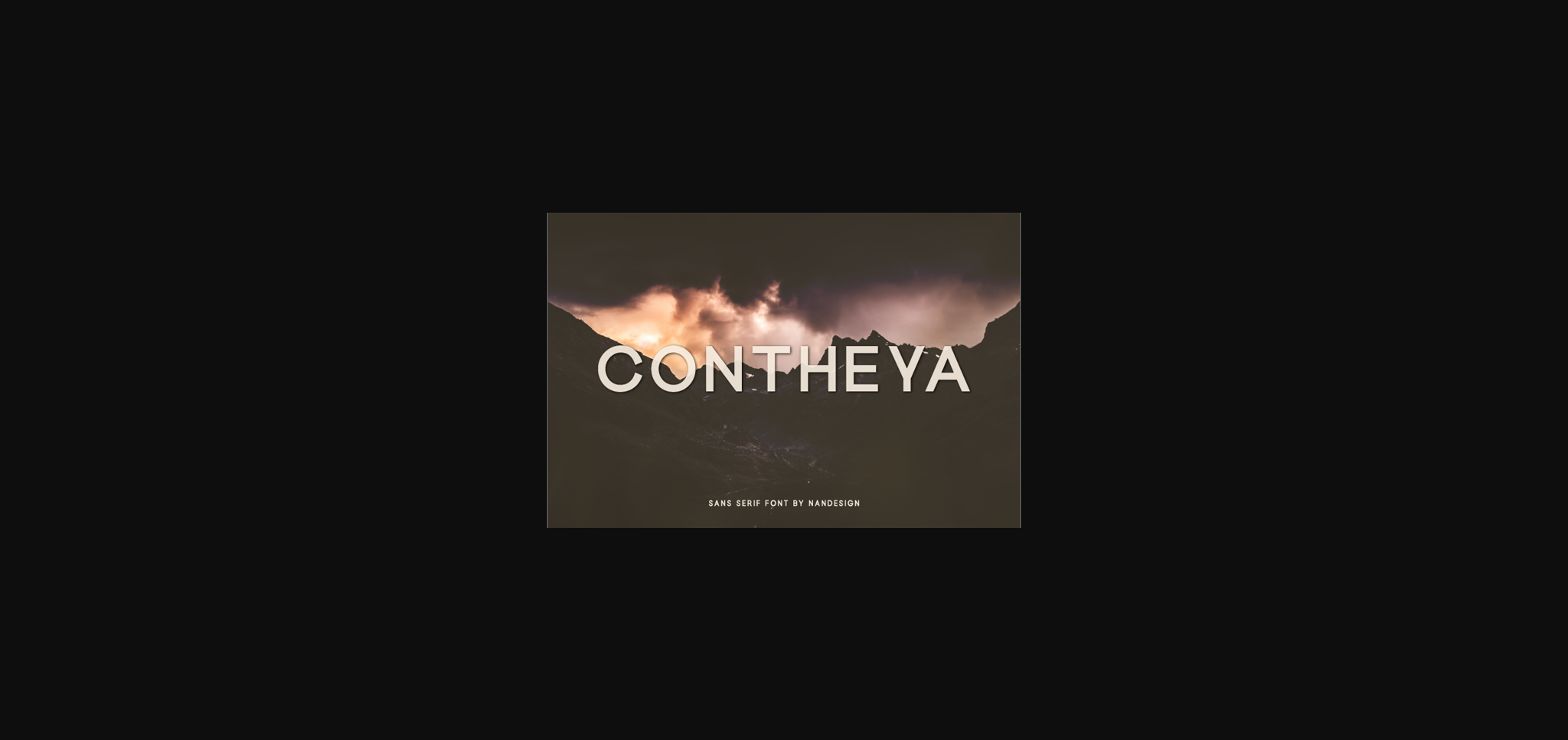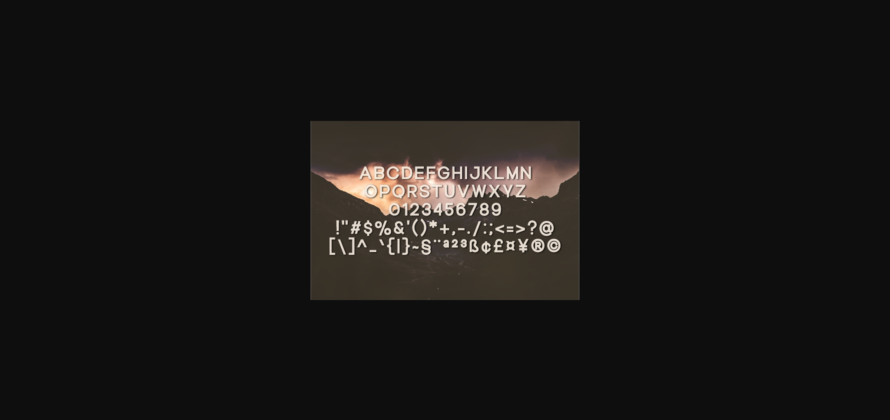
About Contheya Font
Contheya is a fitting and useful sans serif font. It can be used for various purposes such as logos, invitations, headings, t-shirts, letterhead, signage, labels, news, posters, badges and so much more.